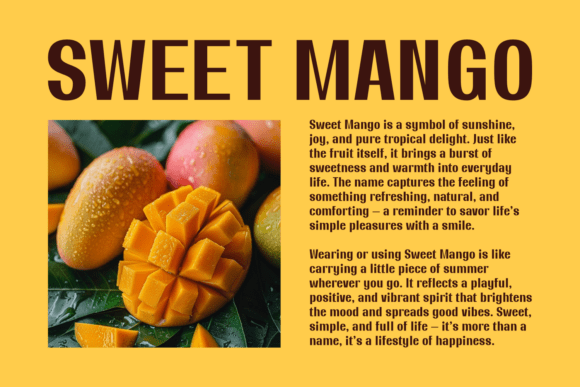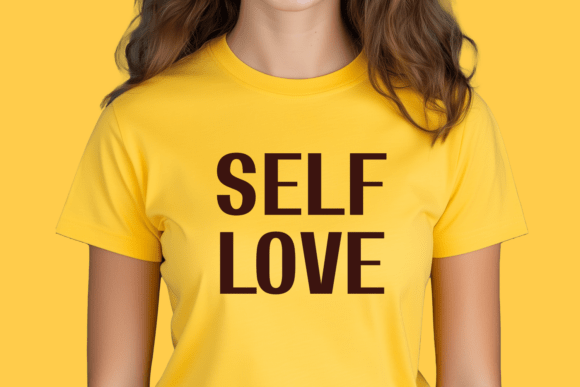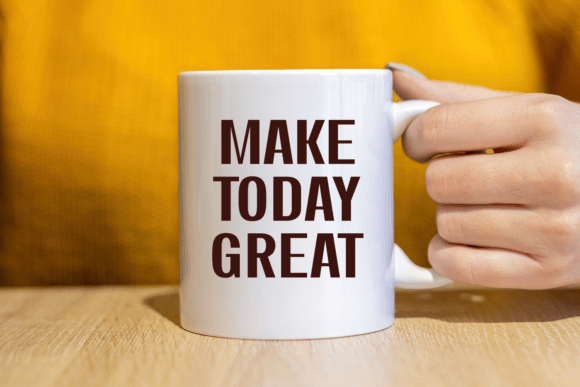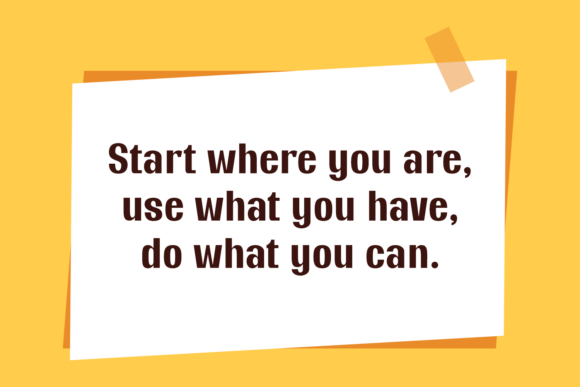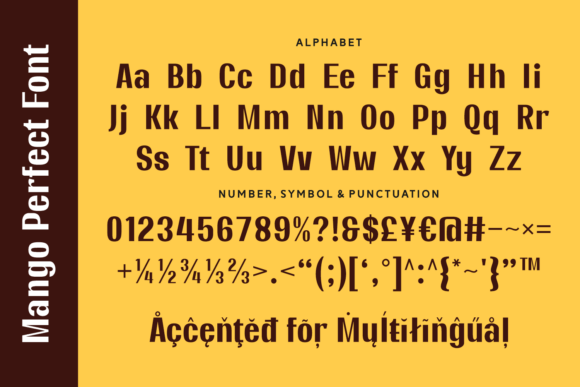
Introduction to Mango Perfect Font
Mango Perfect is a bold and clean sans serif font with a modern yet approachable style.
Its strong lines and balanced proportions make it highly versatile, perfect for branding, packaging, posters, headlines, and digital content With a fresh and contemporary look, Mango Perfect brings clarity and confidence to any project while maintaining a friendly and stylish vibe.